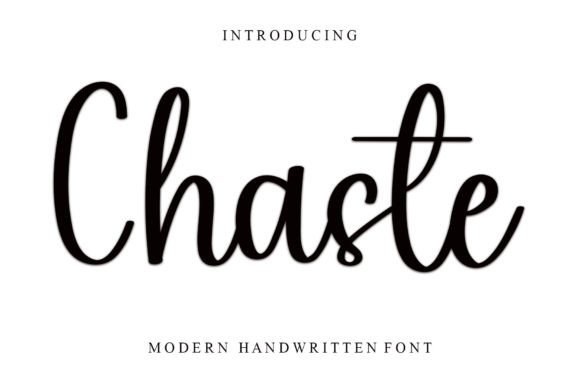
Introducing Chaste Font, the perfect script font for your Halloween poster! Created by the talented PiPi Creative, this neat and beautiful handwritten font will add an elegant touch to all your favorite projects. Get ready to fall in love with its incredibly distinct and timeless style, and unleash your creativity to create spectacular designs!
Chaste Font is more than just a font – it's an experience. With its captivating and enchanting appeal, it effortlessly captures the essence of Halloween. Whether you're designing a spooky party invitation, a bewitching flyer, or a hauntingly beautiful poster, Chaste Font will elevate your artwork and make it truly memorable.
Immerse yourself in the world of Chaste Font and discover its endless possibilities. Each letter is meticulously crafted with an elegant touch, ensuring that every word you create exudes sophistication and charm. Its handwritten nature adds a personal and authentic feel, making it perfect for adding a touch of warmth to any design.
With its versatility and adaptability, Chaste Font is a must-have for all your seasonal projects. Let your creativity run wild and explore the wide range of applications this font offers. From Halloween-themed social media graphics to spooky merchandise designs, this font will help you captivate your audience and stand out from the crowd.
But don't just take our word for it. Experience the magic of Chaste Font yourself and witness the transformative power it holds. As you watch your designs come to life, you'll realize that this font is more than just a tool – it's a gateway to a world of endless possibilities. Let your imagination soar and create designs that leave a lasting impression.
Embrace the beauty of Chaste Font and unlock a treasure trove of creative opportunities. Its timeless style ensures that your designs will remain relevant and eye-catching for years to come. Whether you're a professional designer or a passionate hobbyist, this font is your secret weapon for creating stunning visuals that leave a lasting impact.